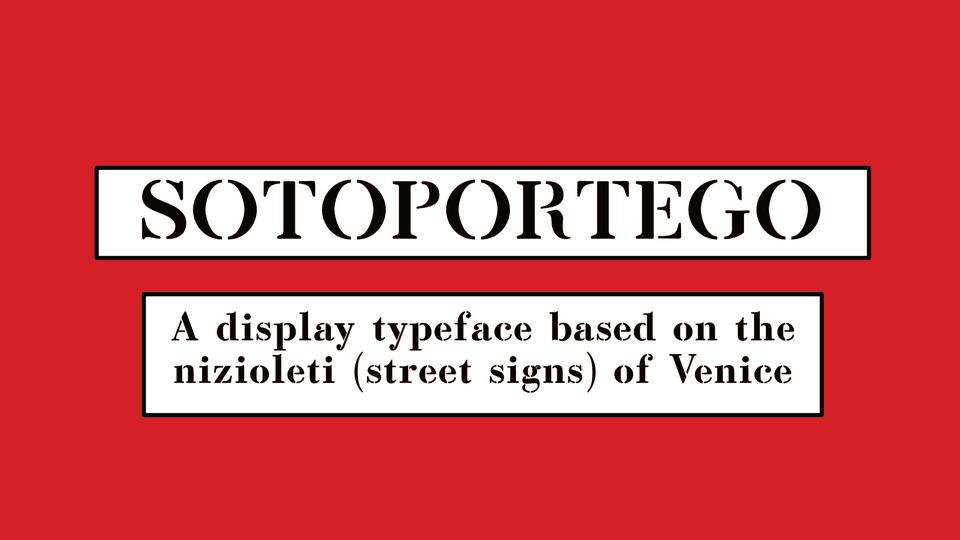
Feb 3, 2025SerifSotoportego Font Sotoportego is a display typeface based on Venetian ‘nizioleti’ street signage. The font is defined by smooth curves and stenciled shapes and is perfect for display or editorial designs. Font DetailsDesigned by: Ben Byram-WigfieldWebsiteLicense: Free for commercial use, OFL Download Sotoportego FontFile size: 22.47 KBCreated: February 16, 2025Updated: February 16, 2025 Download Explore similar fonts Cinzel Decorative Font Family Bonfield Font Brolike Font Cinzel Font Family Hikate Font Flowserif Font # Elegant# Old Style# Stencil# Vintage